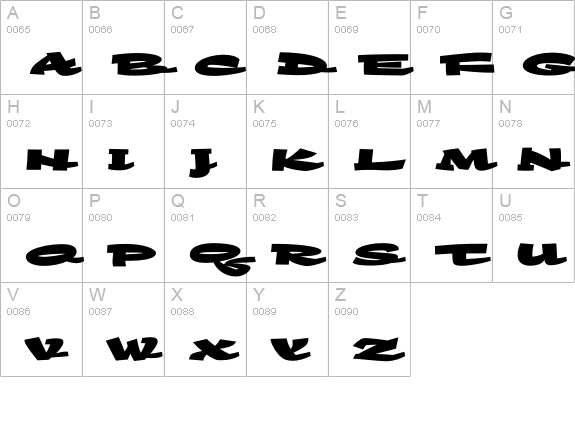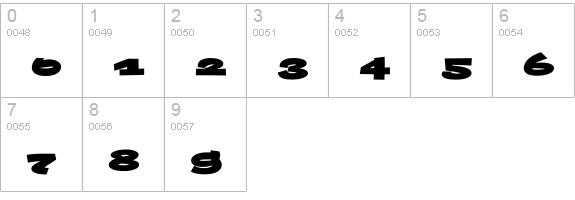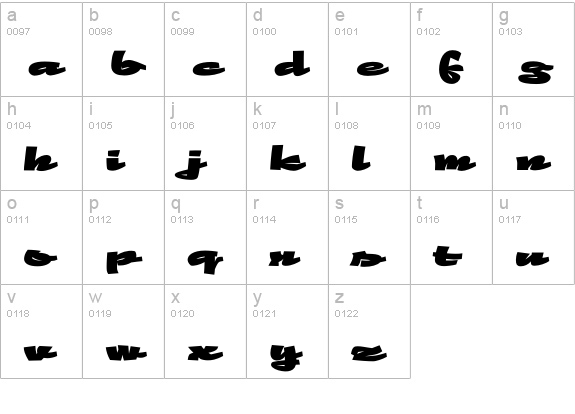
Razom Script Black Font Details
Razom Script Black is a maximum-weight, dramatic variant in the Razom typeface family \xE2\x80\x94 well suited to maximum-impact headlines, posters, and packaging.
Razom Script Black is a stylish and elegant font that exudes sophistication and modernity. Its sleek lines and intricate details make it perfect for various design projects, from branding to packaging and everything in between. This font strikes the perfect balance between classic and contemporary, making it a versatile choice for any creative endeavor. The best part? Razom Script Black is available for free download at FontsMarket.com. This means you can easily access this stunning font and incorporate it into your designs without any cost. Don't miss out on the opportunity to add a touch of class to your projects with Razom Script Black. Download it today and elevate your designs to the next level.